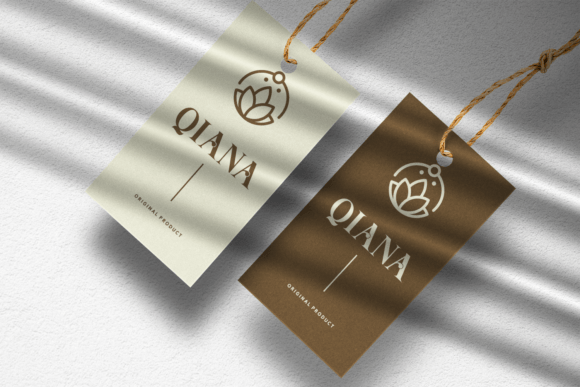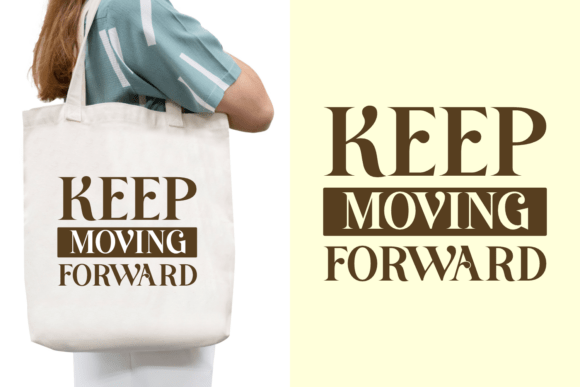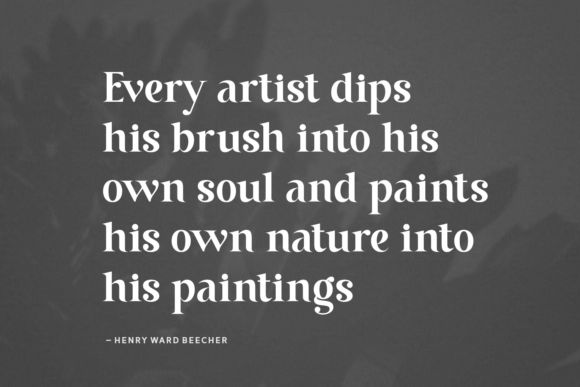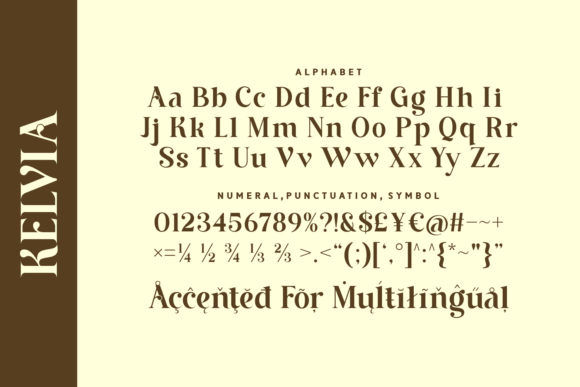
Introduction to Kelvia Font
Kelvia is a striking modern serif font with an elegant, high-fashion appeal.
Its sharp contrasts, sculpted curves, and bold presence make it ideal for luxury branding, magazine headlines, editorial layouts, and upscale packaging Designed to command attention with sophistication, Kelvia blends timeless serif charm with contemporary styleโperfect for projects that require both power and grace.
Key Features of Kelvia Font